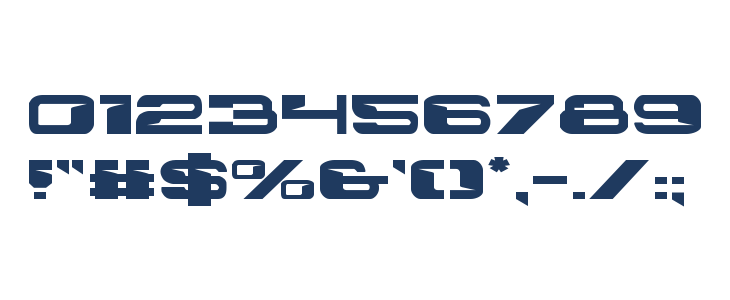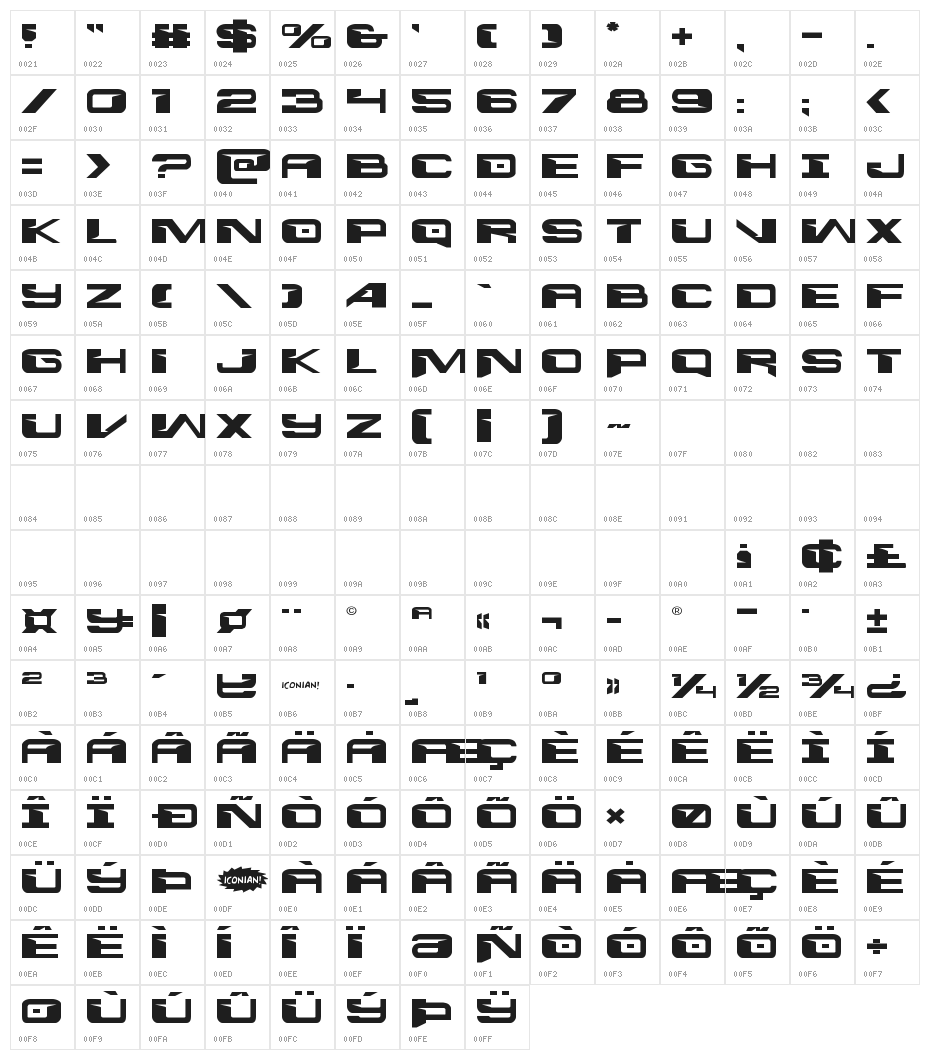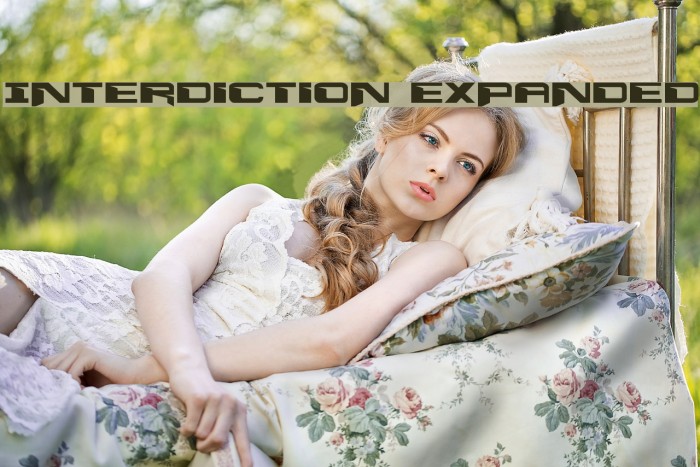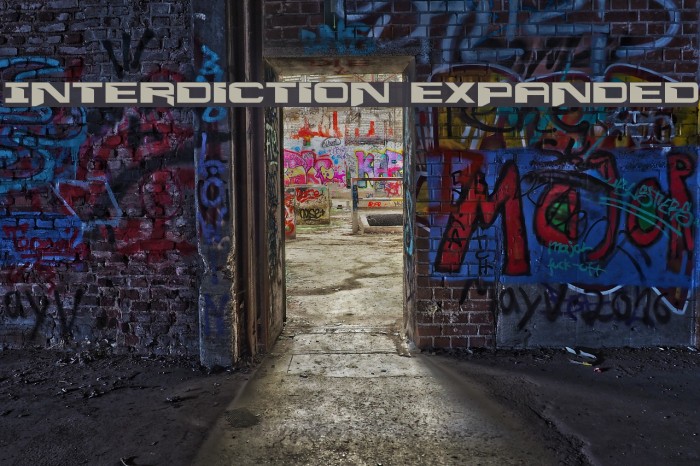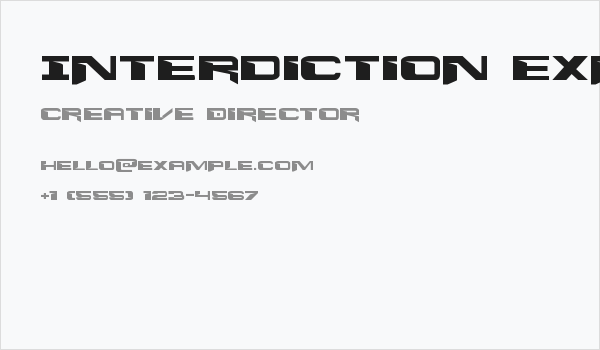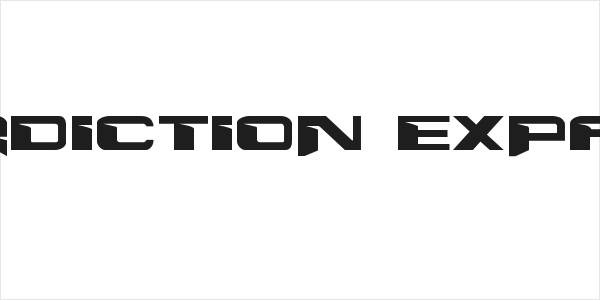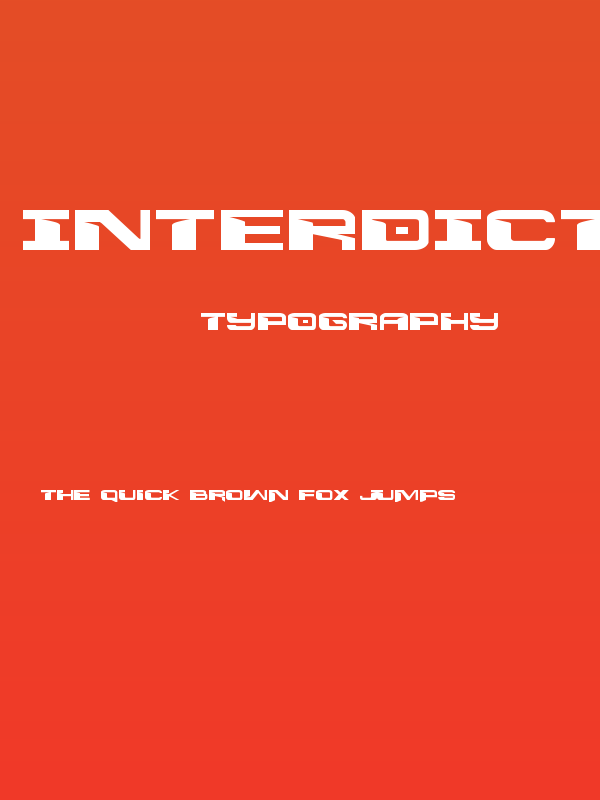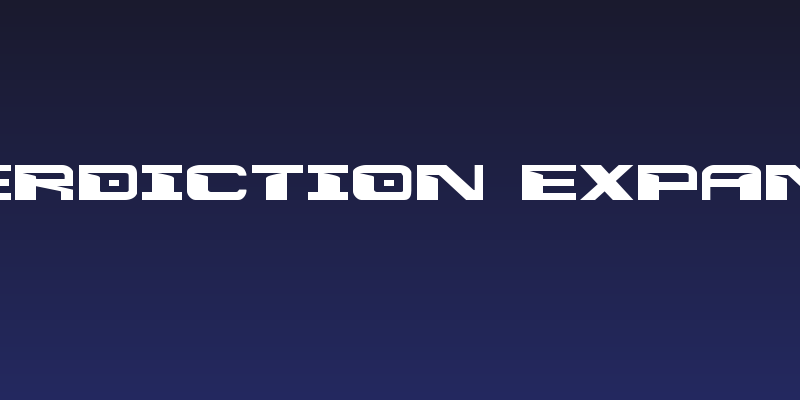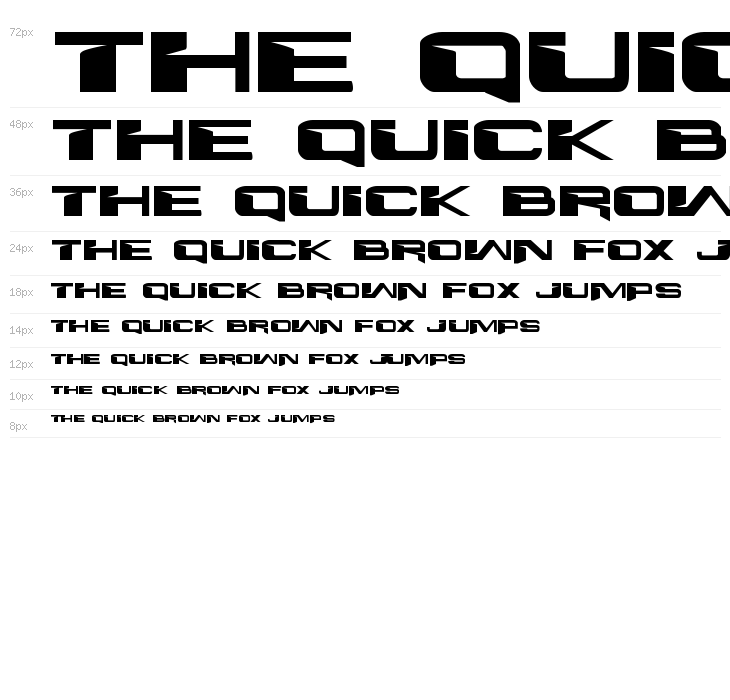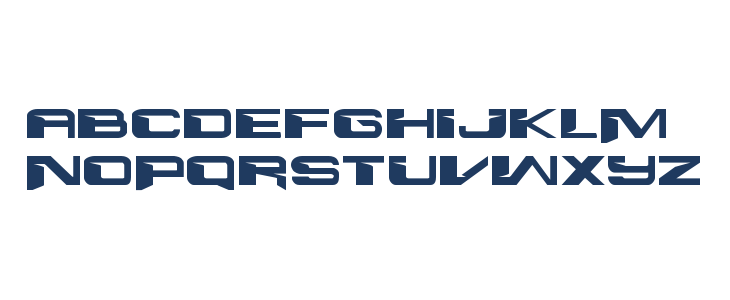
Interdiction Expanded Font
Interdiction Expanded Description
This font features a bold and futuristic design with a strong geometric influence. Each character is crafted with sharp angles and straight lines, giving it a distinctly modern and technological feel. The uppercase and lowercase letters maintain a consistent style, with unique cutouts and negative spaces that add to its dynamic appearance. The numerals and special characters are equally bold, ensuring a cohesive look across all text elements. This font is perfect for projects that require a contemporary and edgy aesthetic.
Proposed ProjectsIdeal for technology branding, sci-fi themed projects, video game titles, and modern advertising campaigns.